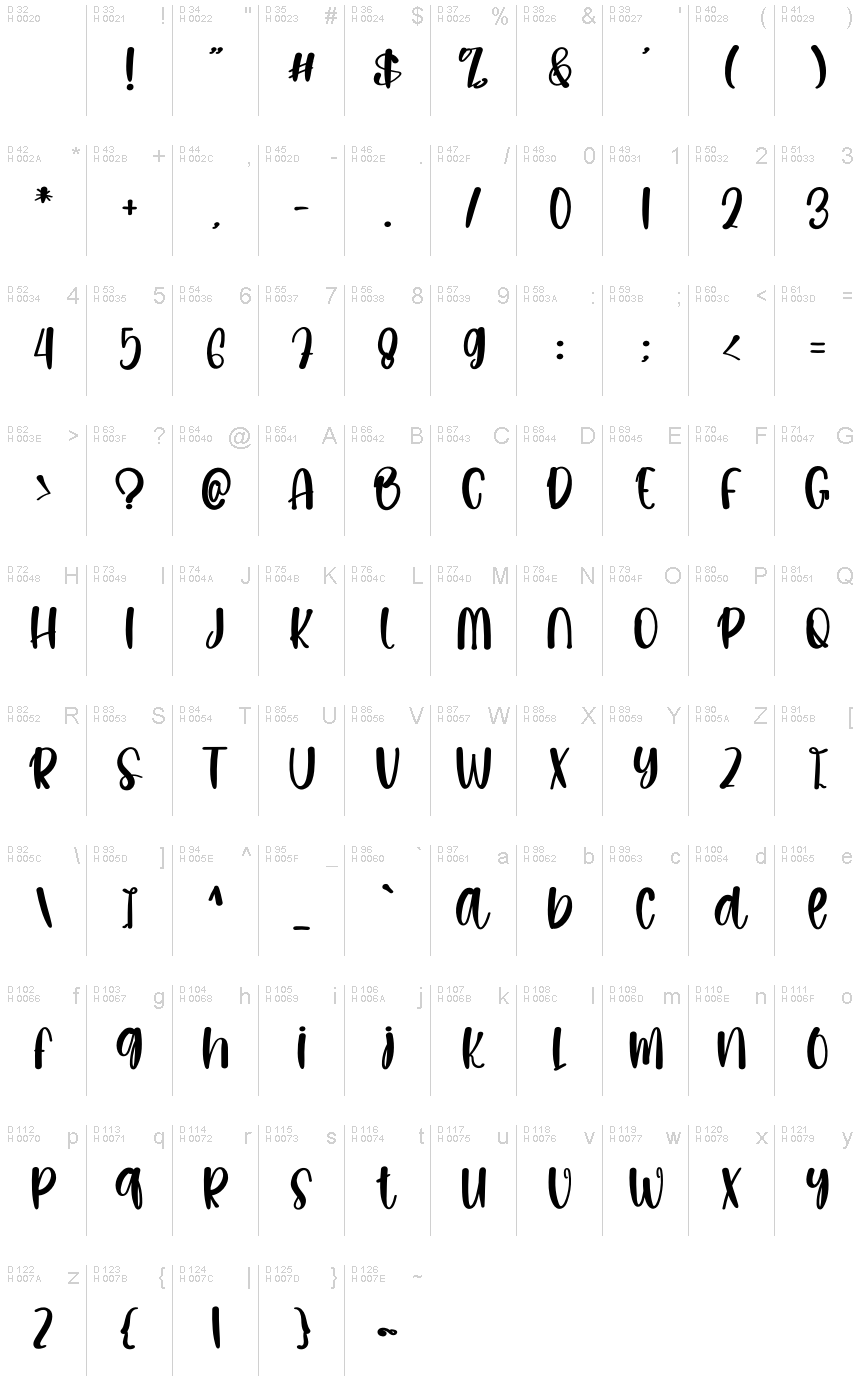
Hopes Smile
Hopes Smile, crafted by the talented PiPi Creative, exudes an irresistible charm with its whimsical, handwritten flair. The condensed width lends a unique, contemporary edge to this captivating font, inviting the viewer to explore its expressive strokes and organic curves. Evoking a sense of warmth and positivity, Hopes Smile effortlessly captivates with its playful personality, making it an ideal choice for a wide range of design projects.
This versatile font showcases its versatility across various applications, from captivating branding and packaging designs to eye-catching social media graphics and personalized stationery. Its fluid, handcrafted aesthetic seamlessly integrates into projects that seek to convey a genuine, heartfelt connection, making Hopes Smile a compelling option for those looking to infuse their designs with a touch of genuine, heartfelt charm.